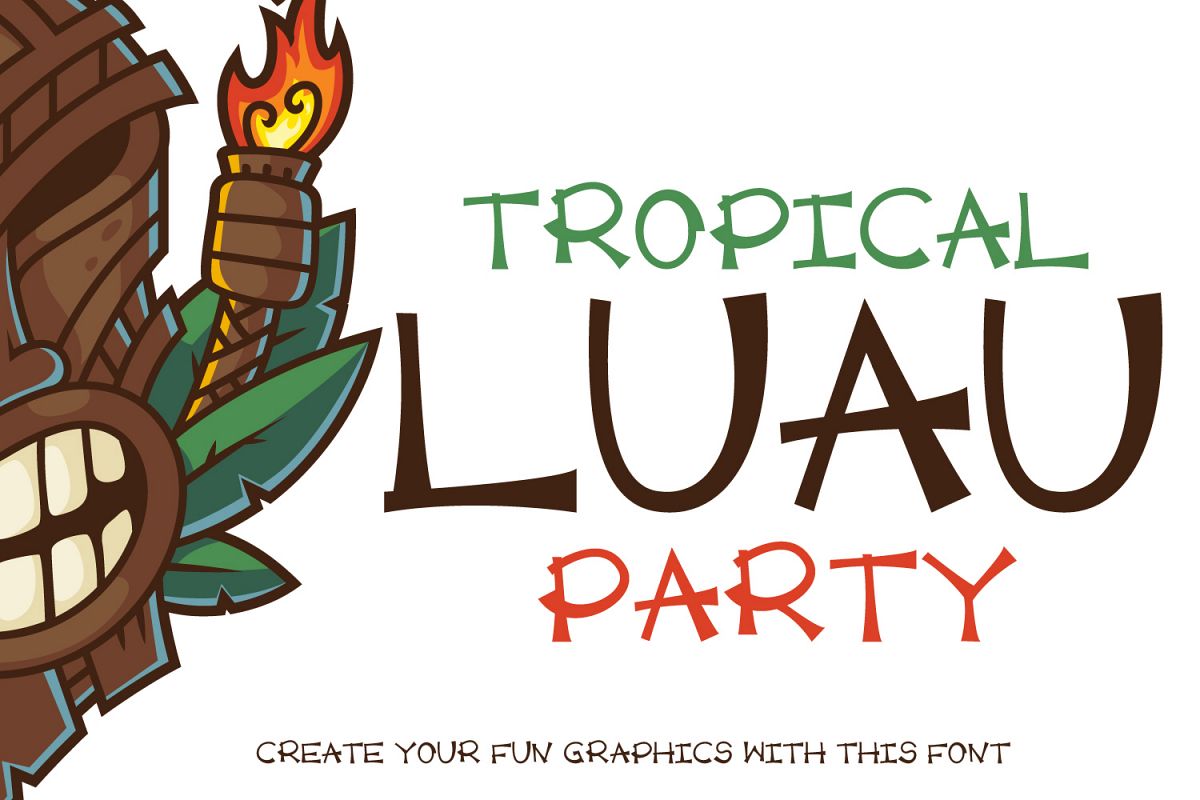
Tropical font is all you need for this monsoon season and this season I am bringing another classic luau font. African classic font that must be in your bucket list. If you like making fun graphic then, This font is specially made for you.
You can create logos, banners and different artwork using this font! amazing for personal and commercial purpose.